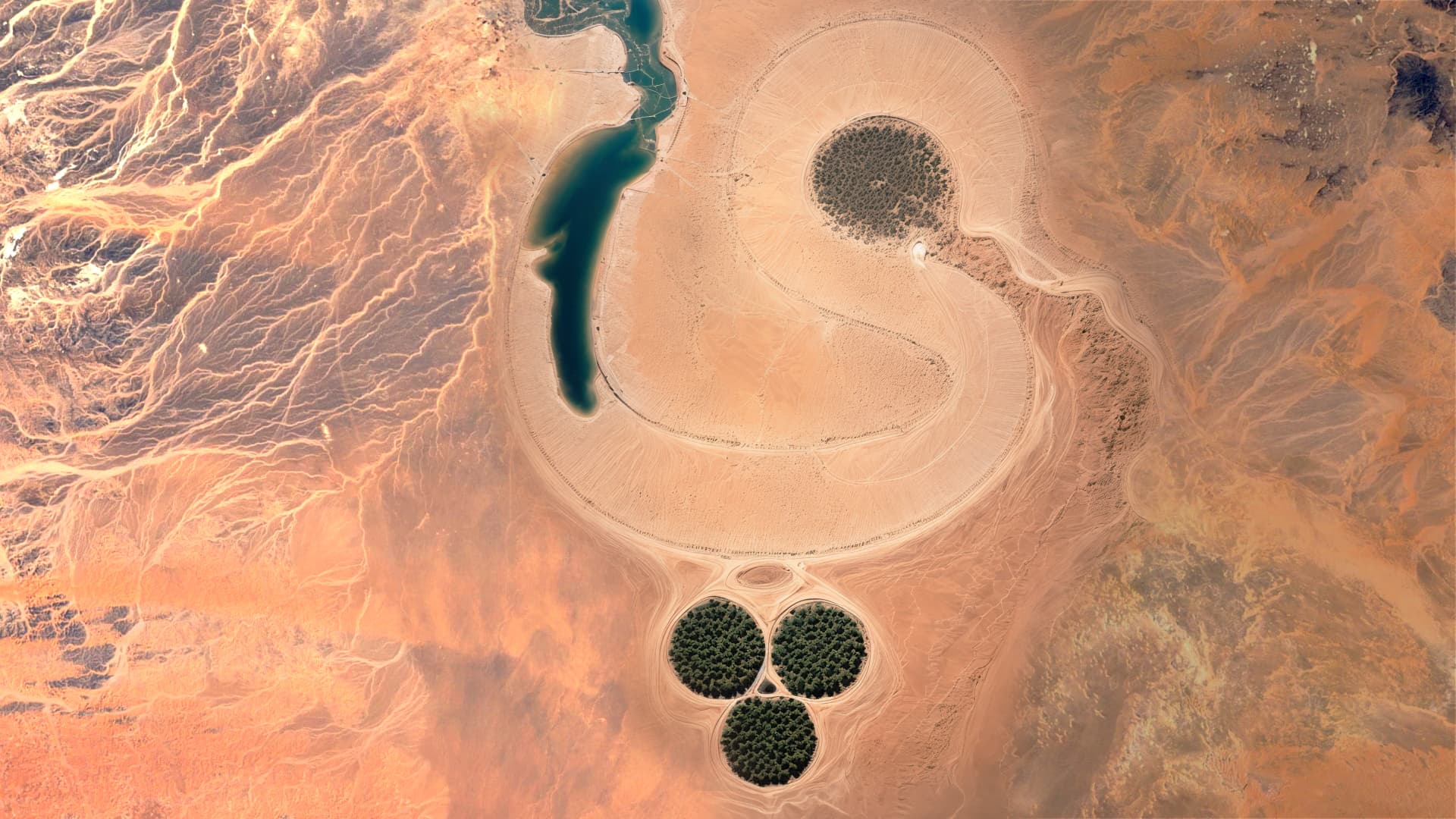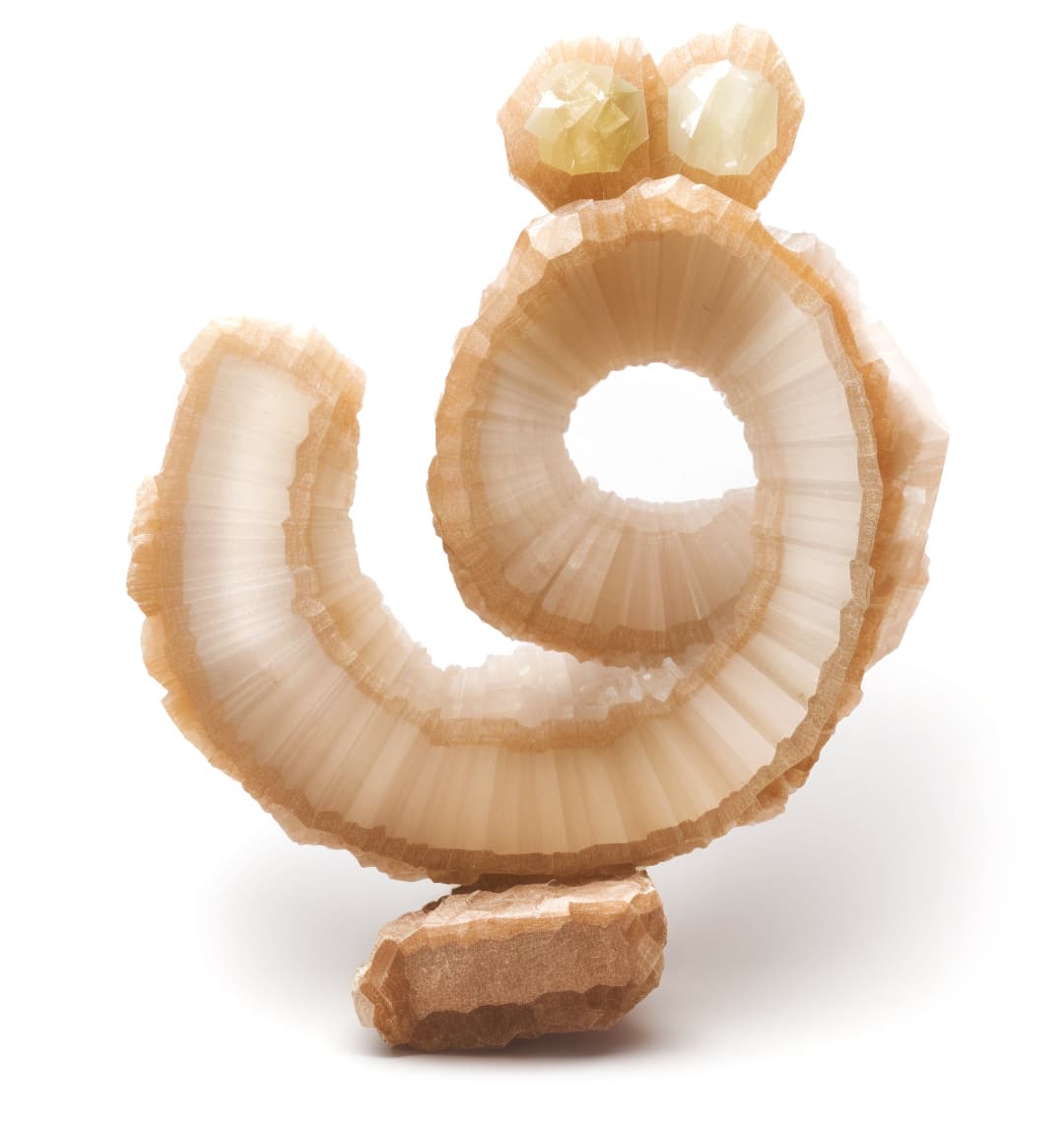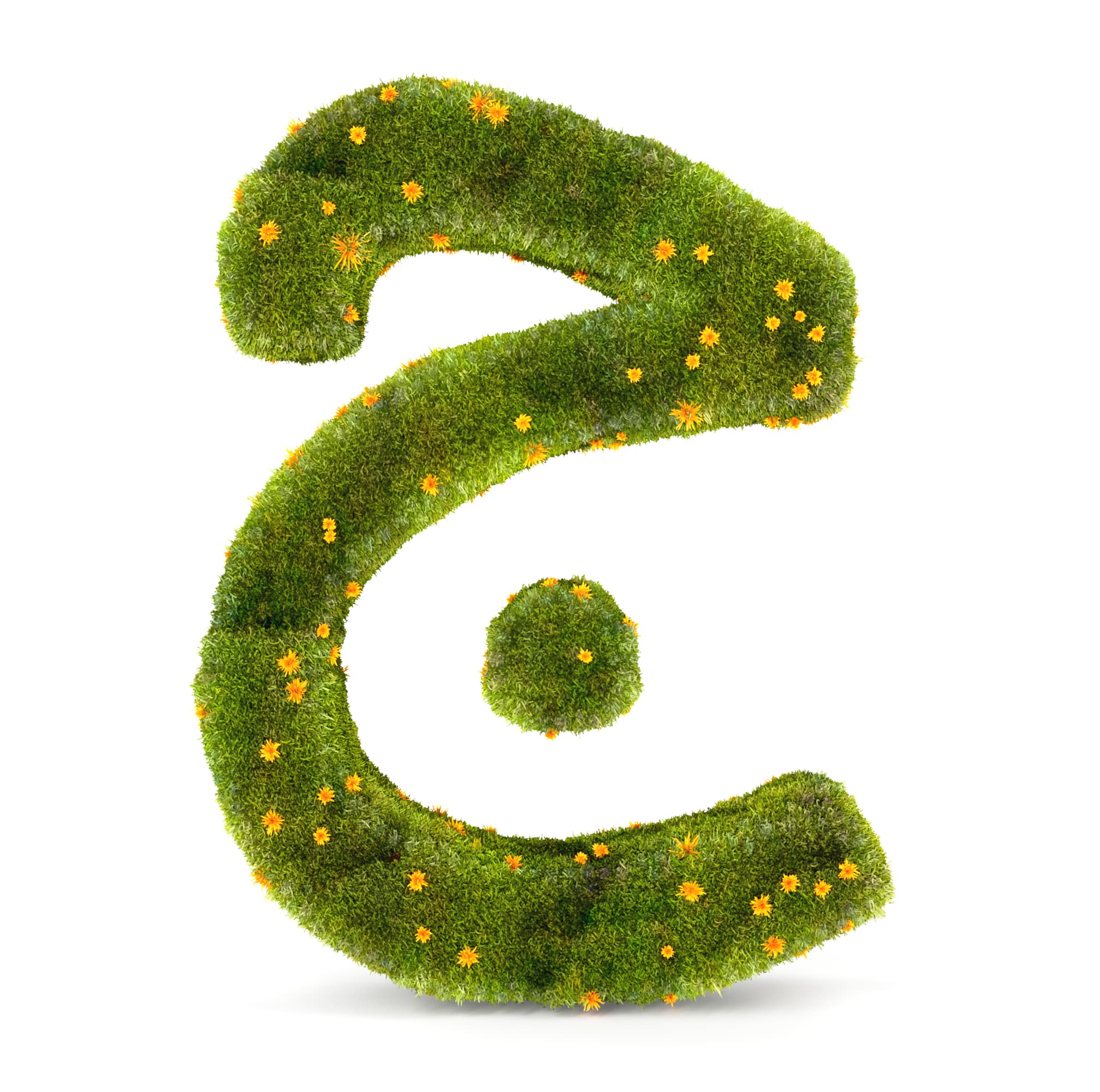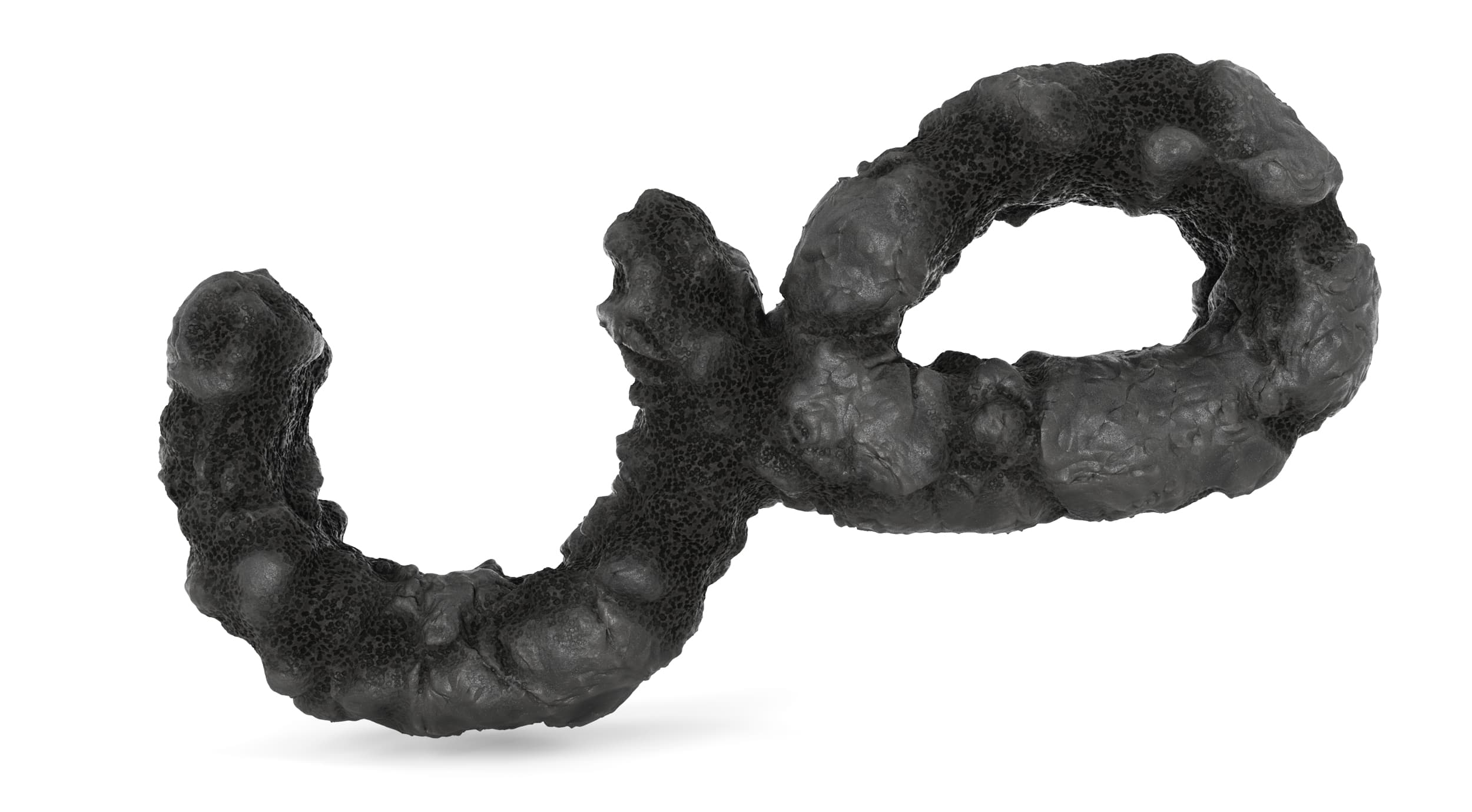
Sharp Earth عربي
Sharp Earth is a new multi-script sans serif typeface spearheaded by Lucas Sharp and drawn in collaboration with a team of local experts from around the globe. The Sharp Earth family covers nearly every latinized language script on Earth in addition to Greek, Cyrillic, Arabic, Thai, Devanagari, and Japanese. As a contemporary expression of the international style, Sharp Earth is unified by a forward-looking aesthetic paradigm that has been drawn by and for a truly global design culture. Sharp Earth doesn’t neatly exist in any single sub-genre of the Sans Serif pantheon. Rather, it brings together core aspects of disparate sub-genres of sans serif type that share an emphasis on warmth, pragmatism, and utility.
Sharp Earth Arabic is Sharp Type’s first Arabic typeface, a versatile low-contrast script that matches its Latin counterpart’s combination of expressiveness and neutrality through a balance of practical legibility and design idiosyncrasy. By honing in on the boldness of Thuluth calligraphy and the clarity of Naskh’s rounded forms, Sharp Earth Arabic captures the tension of the larger Earth project beautifully, sharing the Latin’s low contrast, delicately flared terminals, and uniform ascender height. Sharp Earth Arabic was initially developed by Shahd El-Sabbagh in late 2020 before the baton was passed to Maha Akl, who finished the character set in October of 2023.